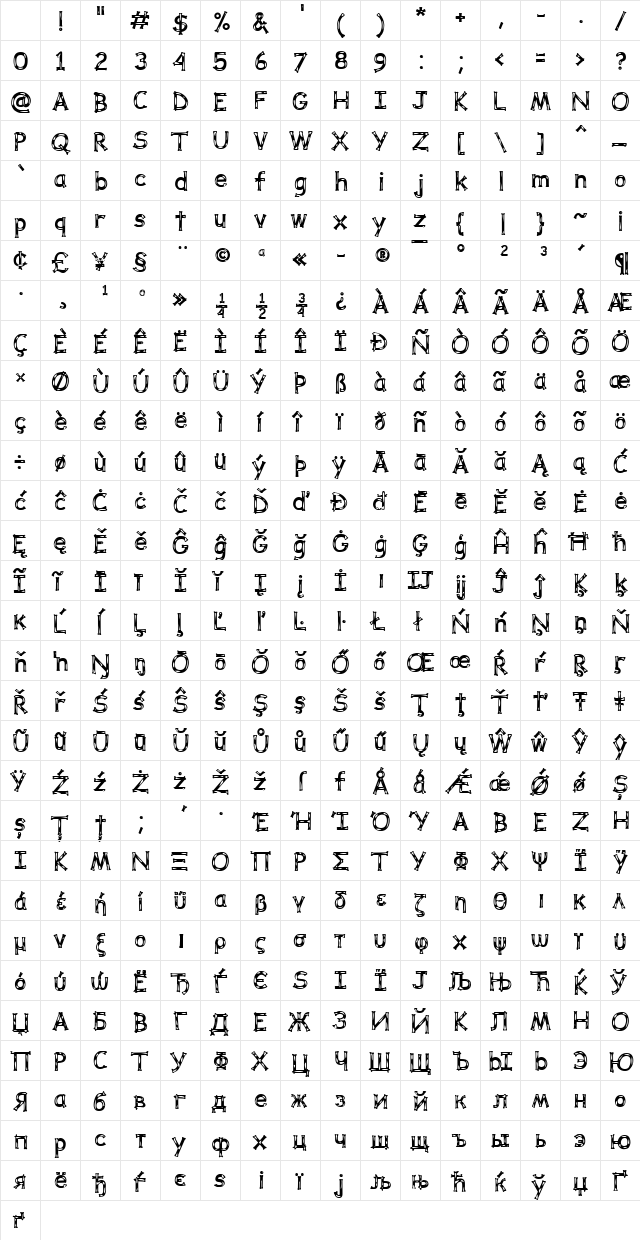
Complete Dalmata Dream bold glyph index. Displaying only characters natively supported by Dalmata Dream bold font.
Dalmata Dream is a composed and adaptable typeface that performs quietly and consistently across a wide range of design contexts. Its bold stroke weight gives it real presence on the page.